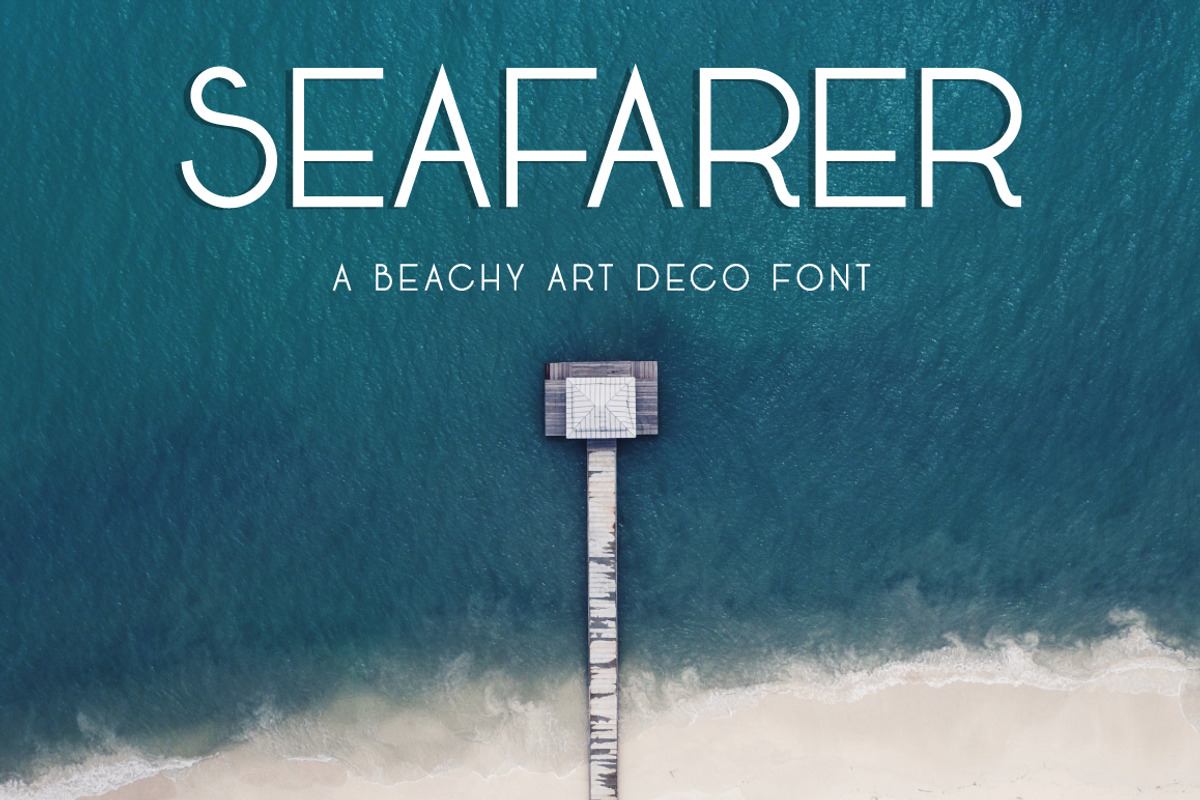
Seafarer | A Beachy Art Deco Font Free Download
Seafarer | A Beachy Art Deco Font Free Download is a unique and stylish typeface that blends the elegance of Art Deco with breezy, coastal vibes. Featuring clean lines, geometric shapes, and subtle nautical influences, Seafarer is perfect for seaside branding, travel posters, beachwear packaging, summer event invitations, and vintage-inspired logos.
Its balanced structure and decorative flair evoke a timeless charm that feels both classic and relaxed. Whether you're channeling the golden age of travel or creating a laid-back resort aesthetic, Seafarer brings personality and polish to your designs.